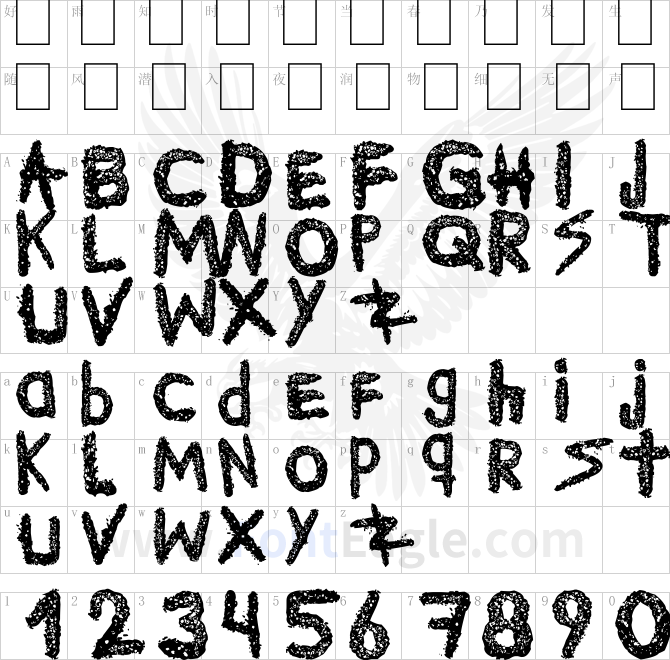
- Font name:Ke$hanimal 2
- Font Subfamily ID:3.1.134;S0;HL;6318299;Ke$hanimal 2:Version 1.00
- Font Full Name:Ke$hanimal 2
- Font Version:Version 1.00 November 1, 2010, initial release
- Postscript:Ke$hanimal2
- Font Copyright:Made with Scanahand. [Alicia England | 2010]